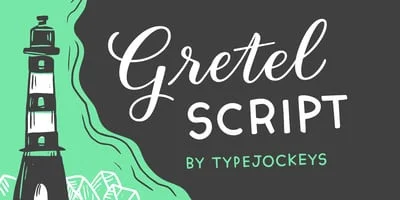
Gretel Script
Gretel Script Font
Gretel Script Font is ideal for handwritten greeting cards, vintage brand logos, rustic wedding invitations, artisan bakery signage, craft product labels, vintage poster designs, personal journal covers, handmade soap packaging, bohemian fashion branding, and authentic storytelling projects.
What makes Gretel Script Font exciting is its authentic handwritten charm and organic character that brings warmth and personality to any design project. This captivating script typeface features natural, flowing strokes that perfectly mimic genuine handwriting, creating an intimate and personal connection with viewers. The font's carefully crafted imperfections and human touch make it ideal for brands seeking to convey authenticity, craftsmanship, and heartfelt communication.
The Gretel Script Font family includes versatile handwritten variations: Regular, Bold, Light, Condensed, and Decorative versions. Each style maintains the core handcrafted aesthetic while offering different levels of emphasis and character. The complete family provides designers with comprehensive options for creating authentic, personal visual communications that feel genuine and approachable.
When your project needs authentic handwritten appeal and personal touch, Gretel Script Font is the perfect solution. This charming typeface transforms digital text into warm, handcrafted visual elements that resonate with audiences seeking genuine connections. Its organic nature makes it perfect for both intimate personal projects and commercial applications targeting authenticity-conscious consumers. Download Gretel Script Font today and add heartfelt character to your designs with this remarkable typeface that perfectly captures handwritten authenticity.